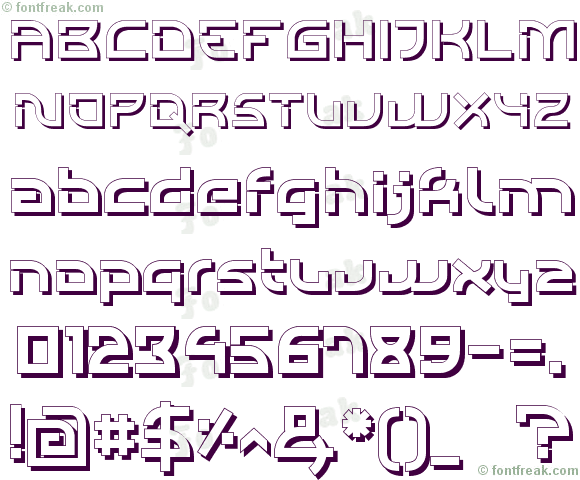
Individigital Shaded
About Individigital Shaded
Individigital Shaded is a unique display font designed by Roland Huse, falling into the decorative category. This font showcases a striking visual style characterized by its bold stroke weight and distinctive shading effects that create a three-dimensional appearance. The contrast between the thick and thin parts of each letter adds depth, making it stand out in any design context. The spacing is well-balanced, ensuring legibility while maintaining an eye-catching aesthetic. This font’s artistic flair is perfect for projects that aim to capture attention and convey a sense of creativity.
Individigital Shaded is well-suited for a variety of use cases. It can be effectively utilized for movie posters, where its dynamic style can draw viewers in. Additionally, it makes an excellent choice for branding materials, helping small business owners create memorable logos that reflect their unique identity. Wedding invitations can also benefit from this font, as its playful yet sophisticated design adds a modern twist to traditional formats. Furthermore, it can enhance restaurant menus, giving a contemporary feel to the dining experience.
The target audience for this font includes graphic designers, small business owners, and content creators who are looking for a distinctive typeface that can elevate their projects. The versatility of Individigital Shaded allows it to be adapted across various mediums while retaining its visual impact.